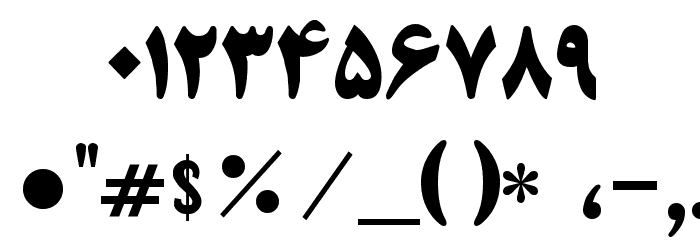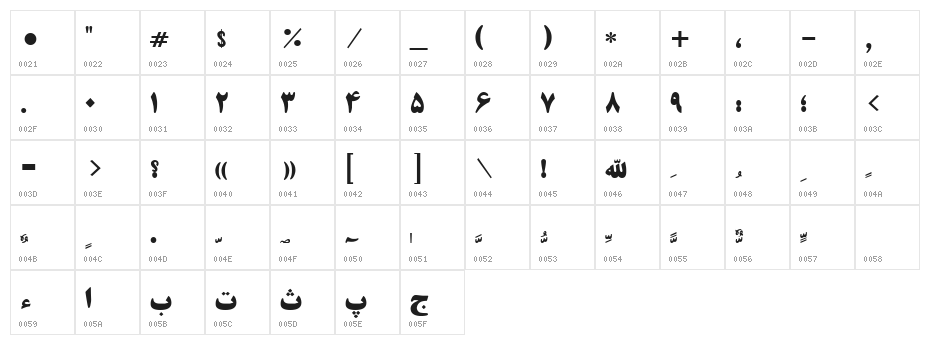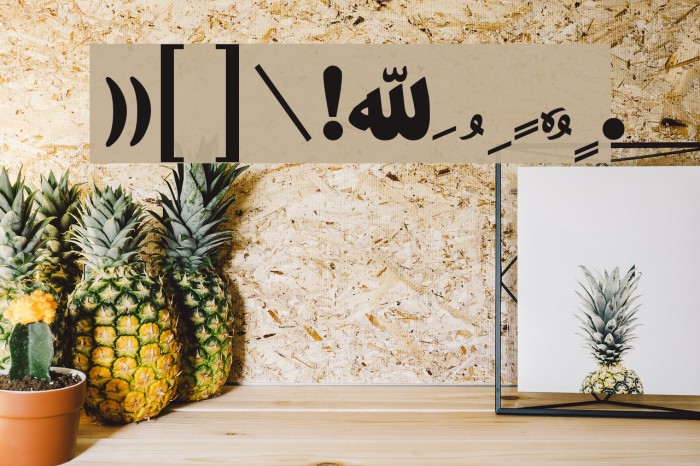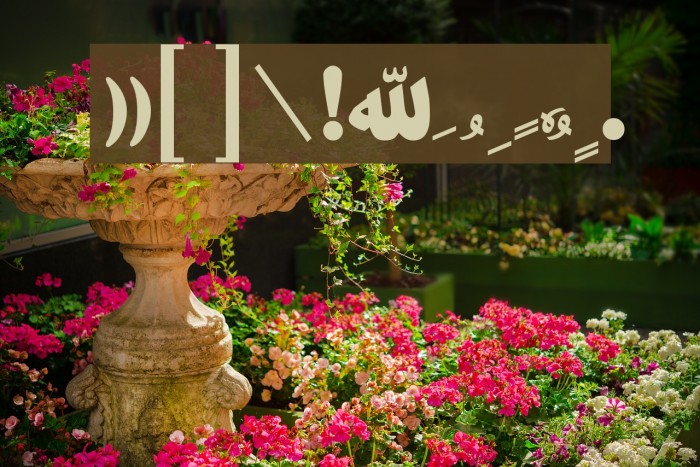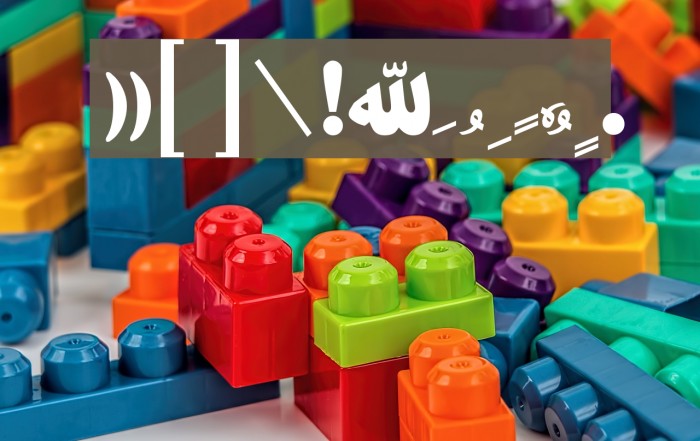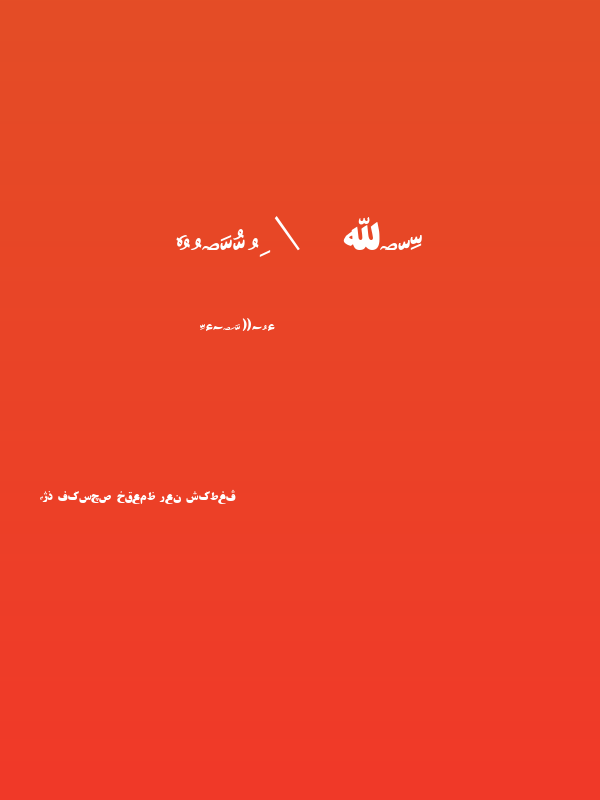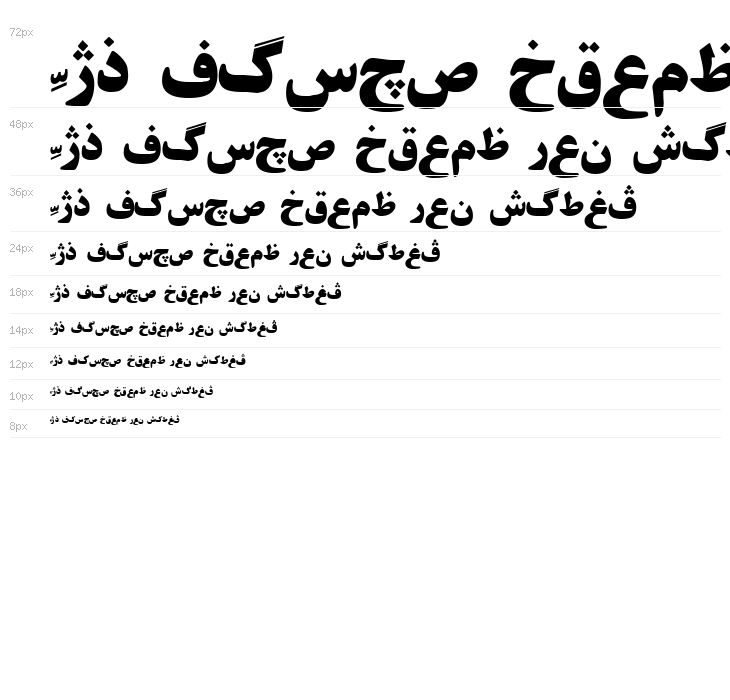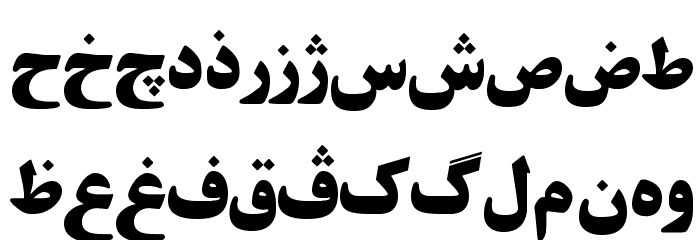
Khorshid Font Description
This font features a bold and dynamic style with a strong presence. The characters are thick and rounded, giving them a robust and impactful appearance. The script is designed with a modern flair, incorporating both traditional and contemporary elements. The strokes are smooth and consistent, providing a clean and polished look. The font includes a variety of special characters and numerals, making it versatile for different uses. Its boldness makes it suitable for attention-grabbing headlines and titles, while the unique character shapes add a distinctive touch to any design.
| Proposed Projects | Ideal for branding, advertising, poster design, and any project requiring a strong visual impact. |